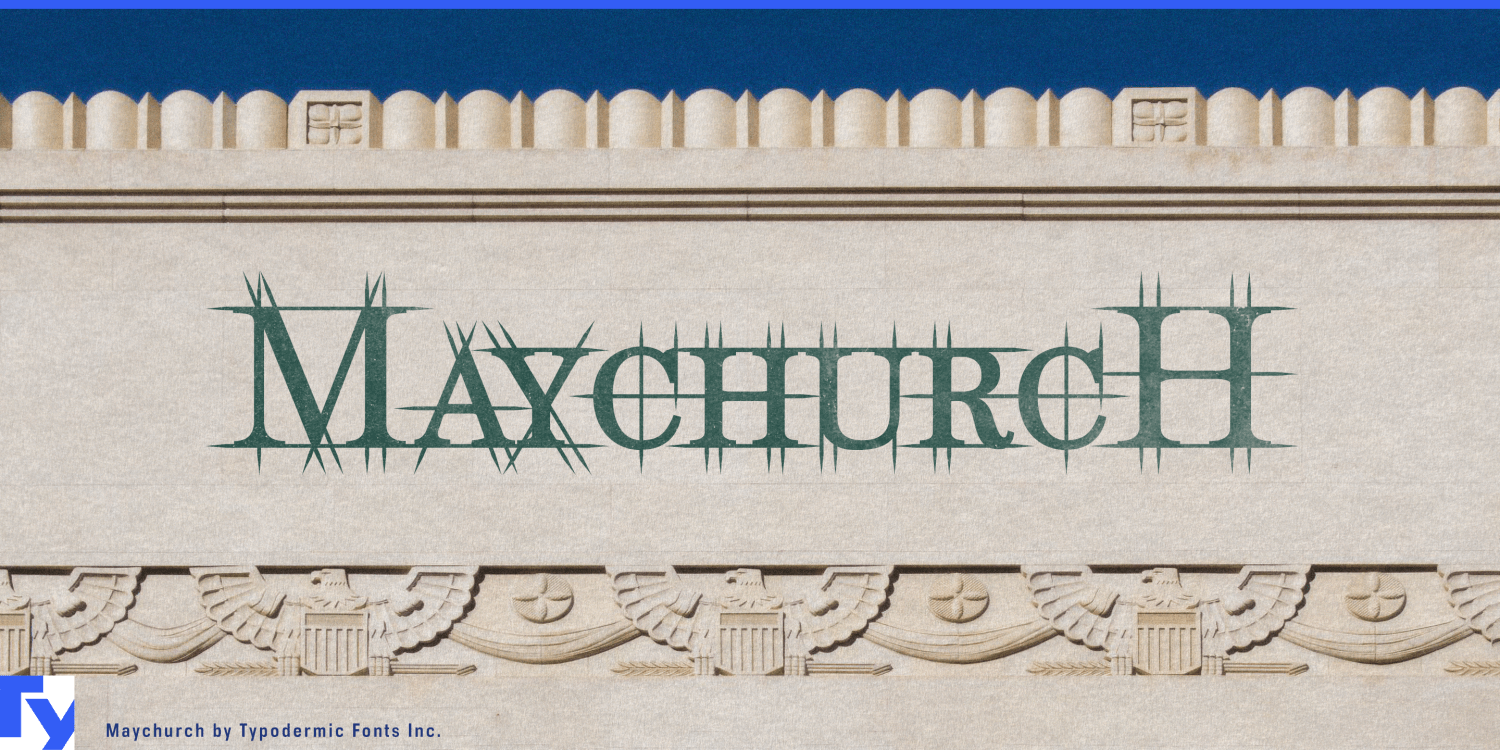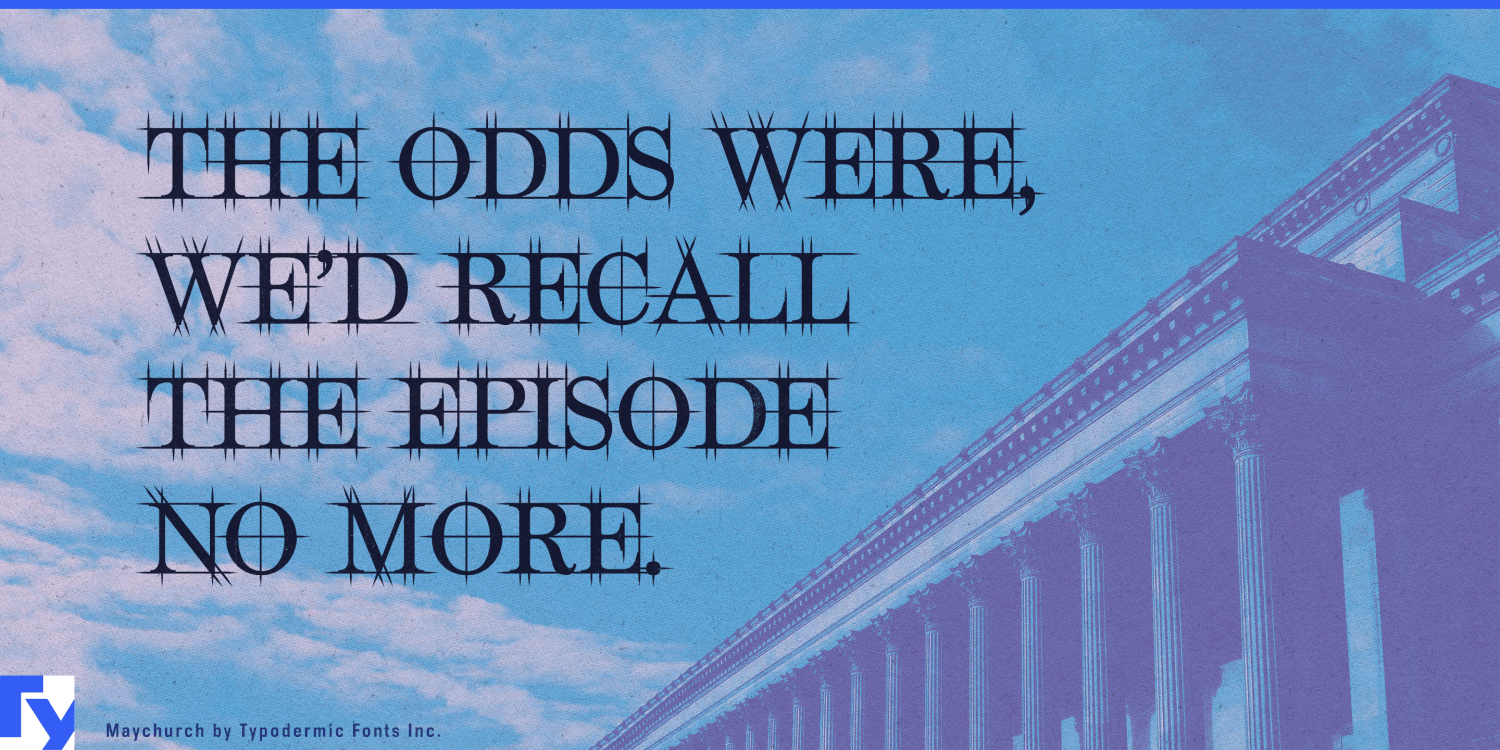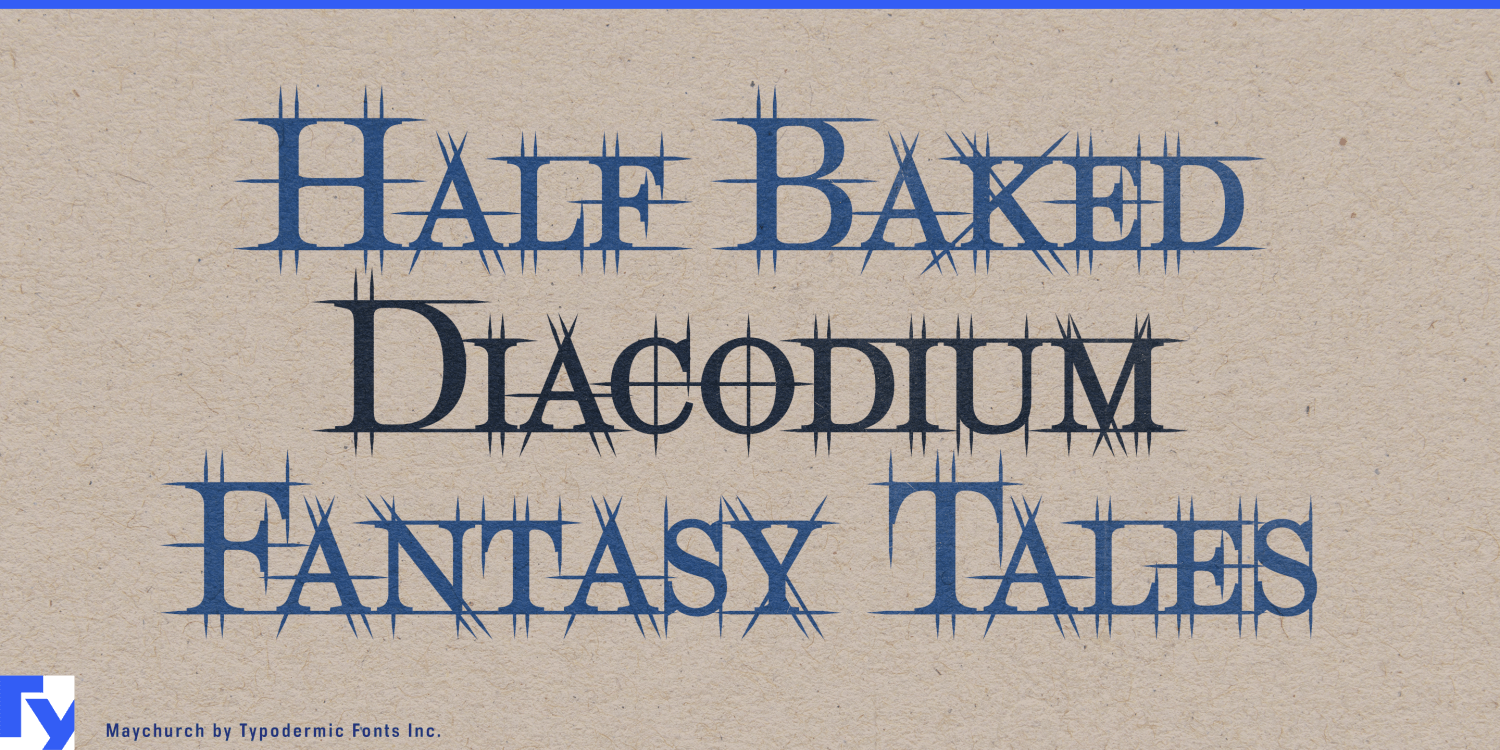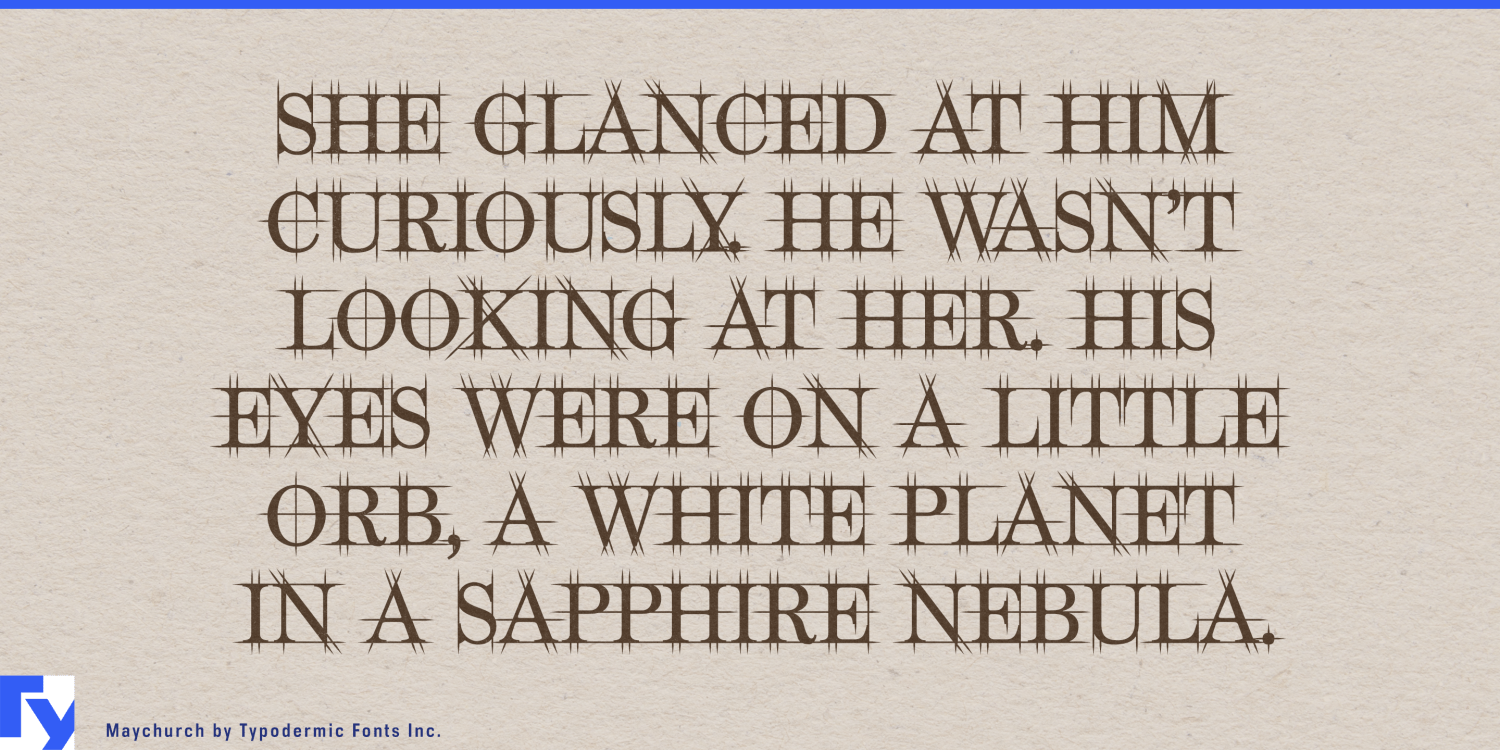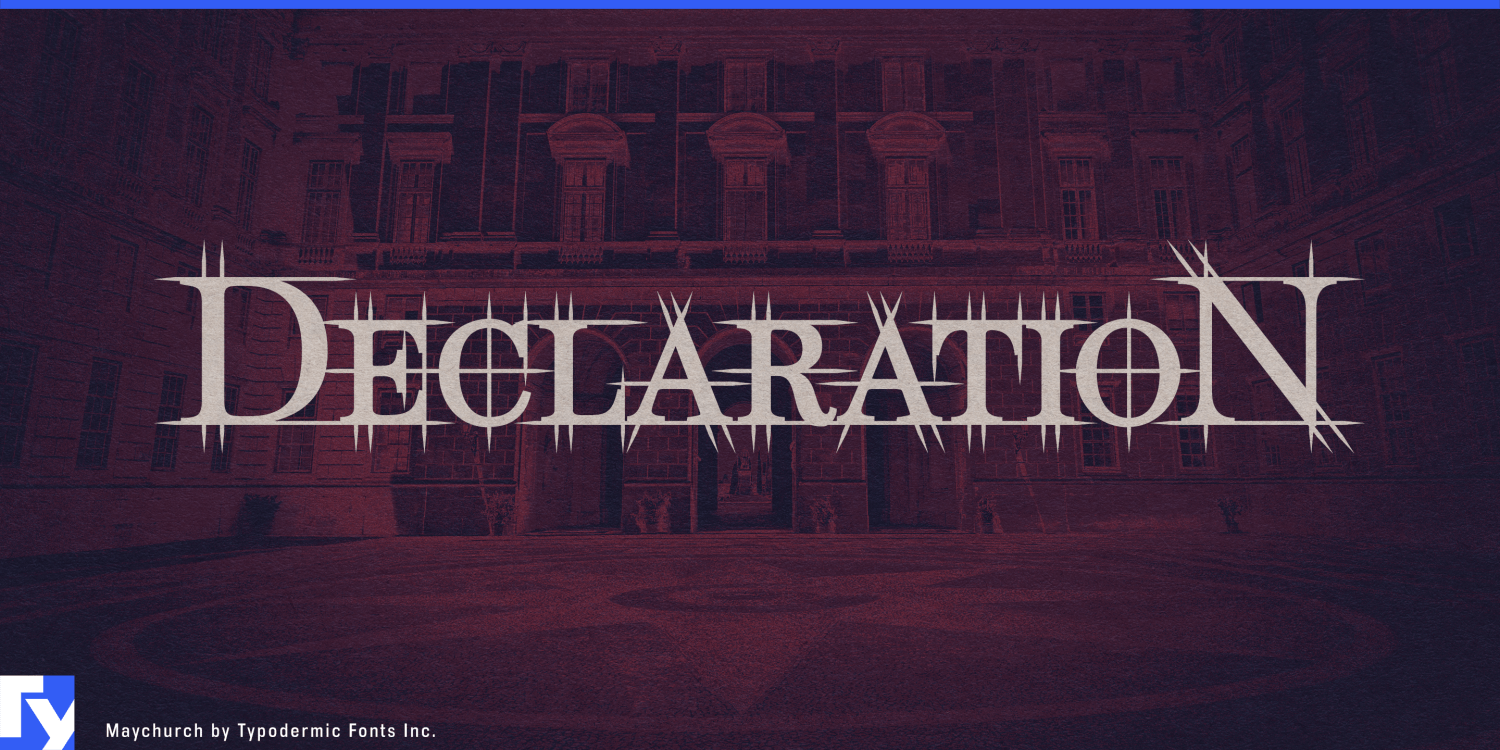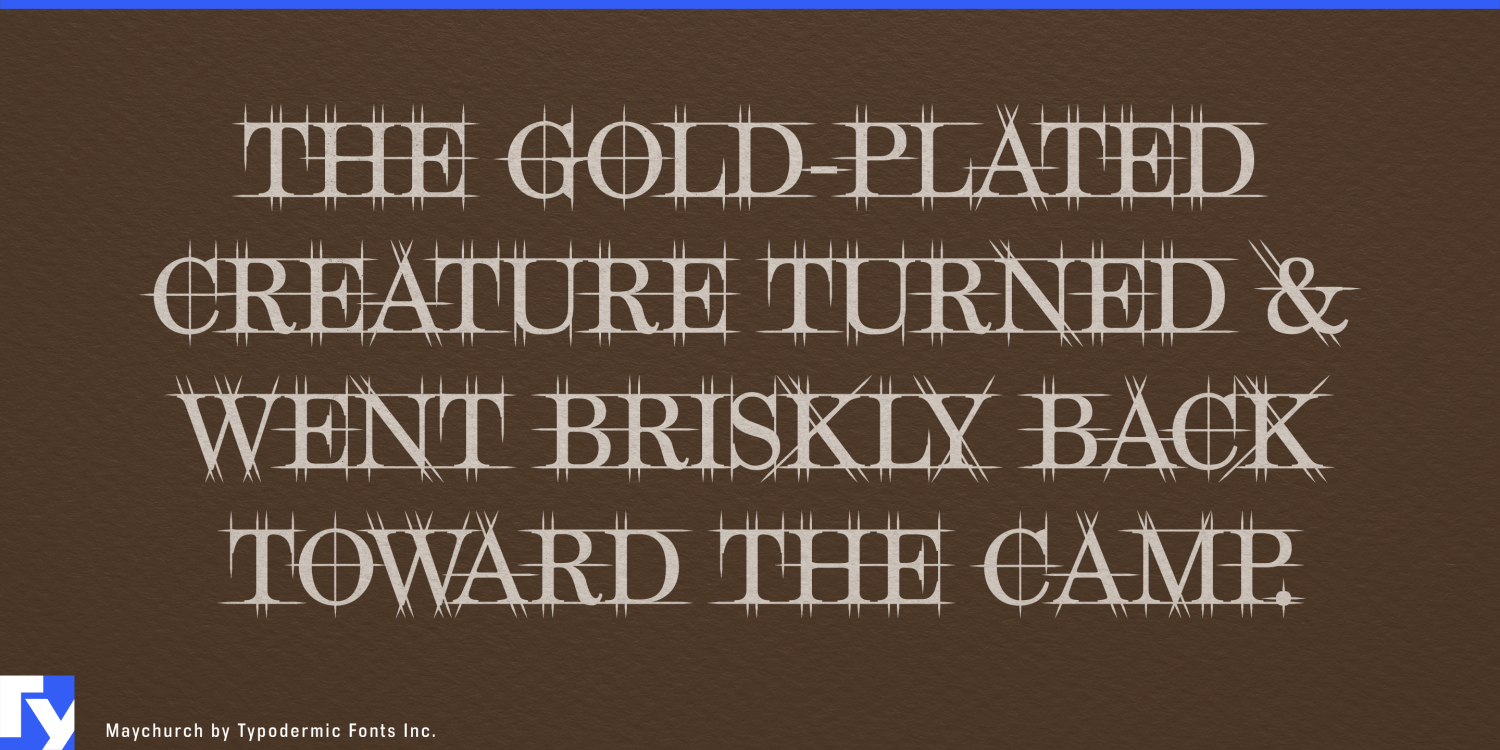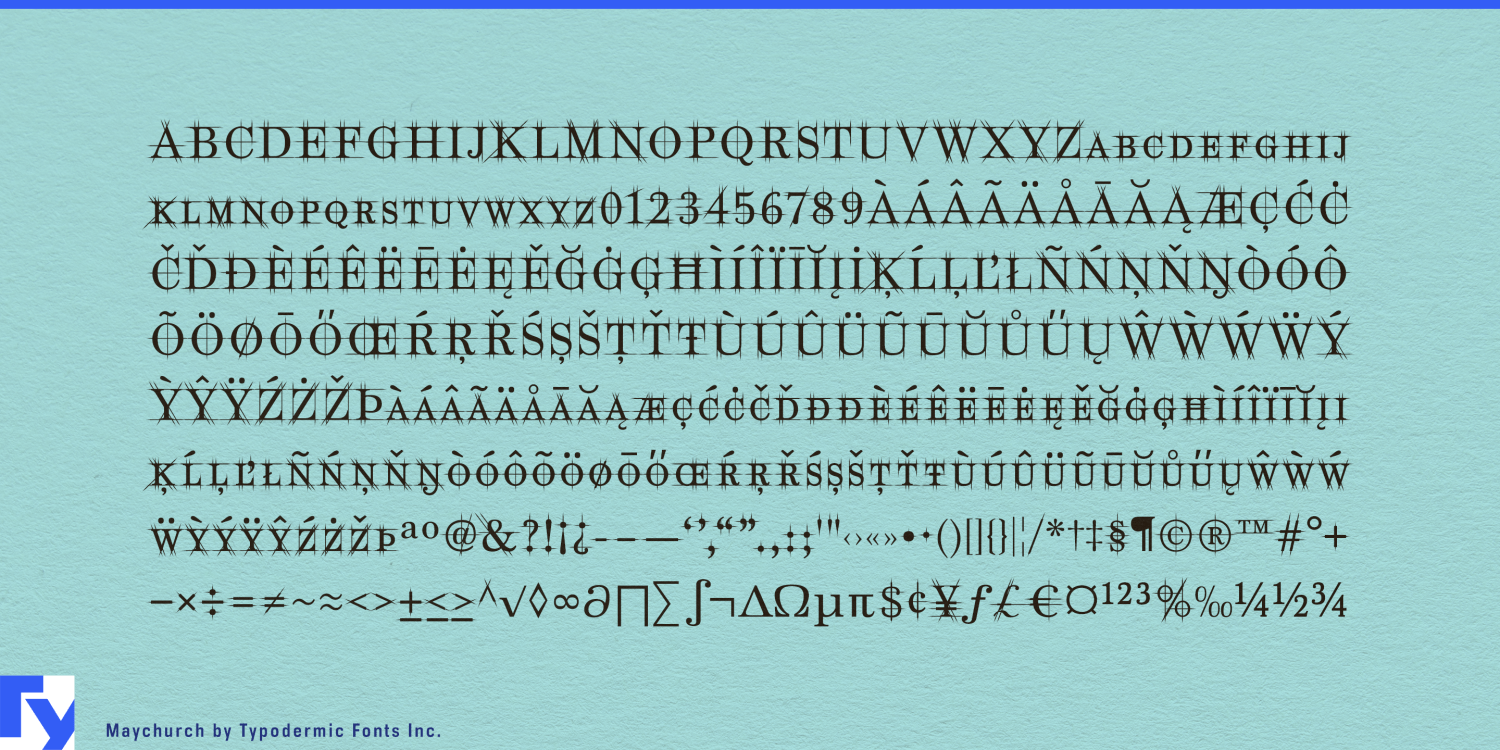
Maychurch
Font Family by Typodermic
Introducing Maychurch, a typeface that transforms text into typographic monuments. Inspired by the grand architectural styles of Georgian, Neoclassical, Federalist, and Victorian eras, Maychurch embodies the precision of master drafters and the vision of great architects.
Each character is a miniature masterpiece, balancing bold structure with intricate detail. Maychurch doesn’t just communicate—it elevates, turning every headline into a façade worthy of admiration and every paragraph into a gallery of refined taste. Perfect for luxury branding, historical publications, and designs that demand gravitas, Maychurch speaks the language of timeless sophistication across a wide array of Latin-based European writing systems. From the White House to the British Museum, this font captures the essence of landmarks that have shaped our cultural landscape.
Choose Maychurch and give your designs a foundation of elegance that will stand the test of time. It’s more than a font—it’s a typographic tribute to the ages of architectural splendor.